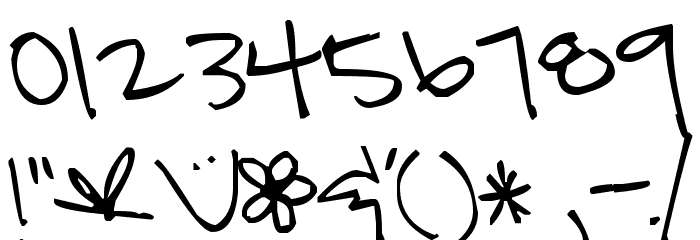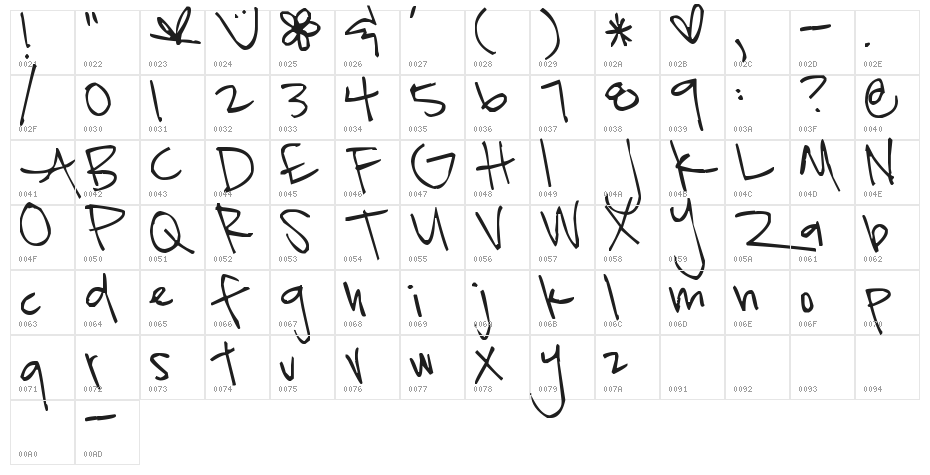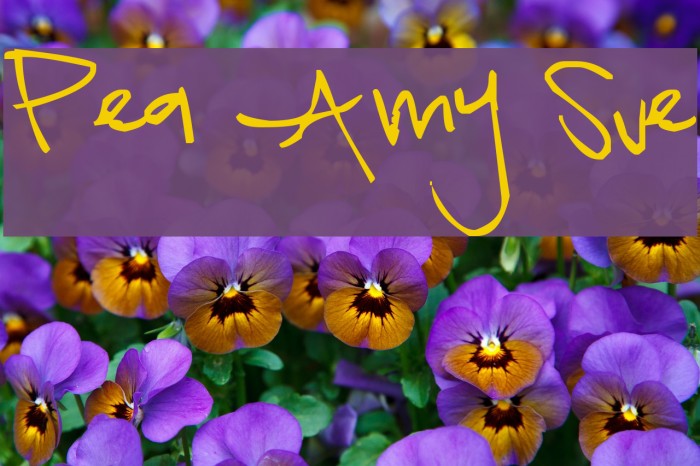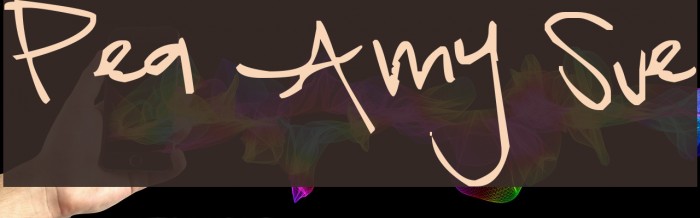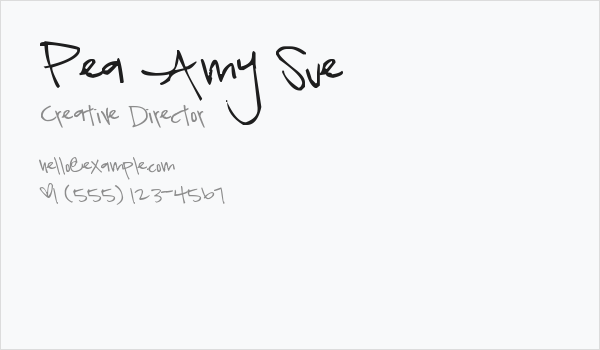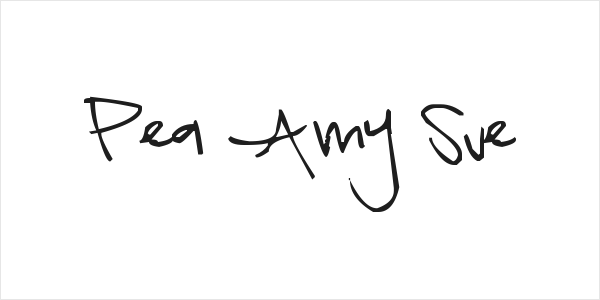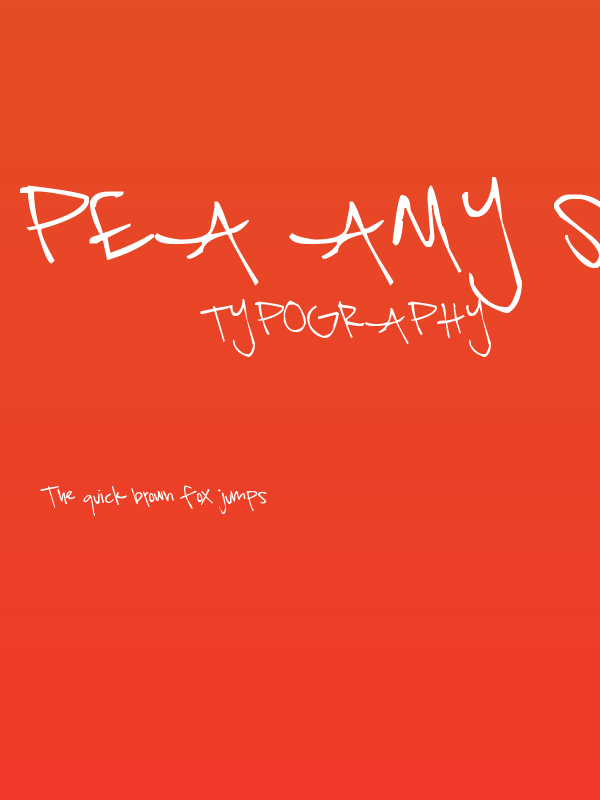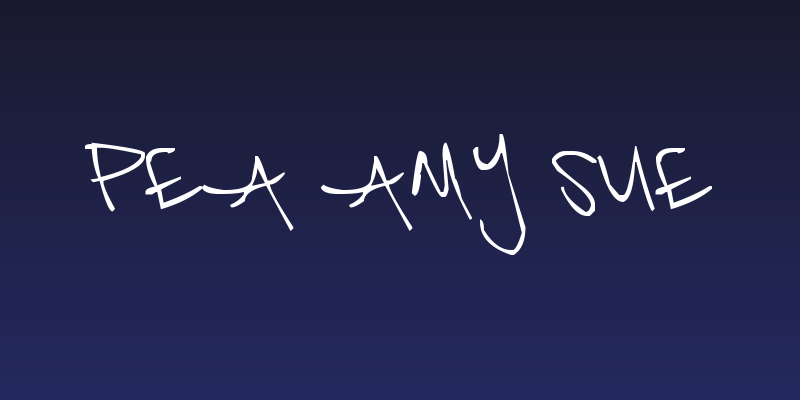
Pea Amy Sue Font
Pea Amy Sue Description
This font exudes a playful and casual handwritten style, characterized by its loose and informal strokes. The letters are slightly irregular, giving it a personal and authentic feel, reminiscent of quick, spontaneous handwriting. The uppercase and lowercase letters maintain a consistent style, with a slight slant that adds to its dynamic appearance. The numbers and special characters follow the same whimsical design, making it suitable for projects that require a touch of personality and creativity. The overall look is approachable and friendly, perfect for informal communications or creative projects.
| Use Case | Greeting cards, Personal notes, Creative projects |
| Proposed Projects | Ideal for greeting cards, personal notes, children's book illustrations, and creative branding projects. |